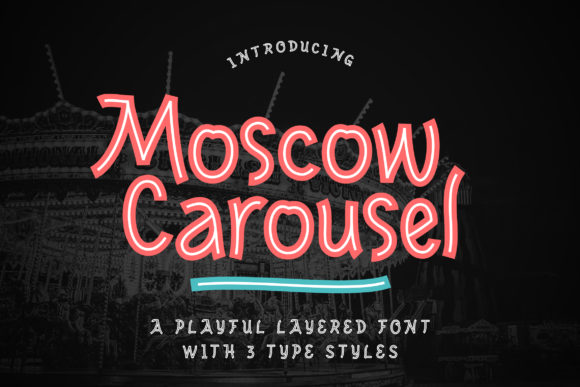
Moscow Carousel Font
Indulge in the whimsical charm of Moscow Carousel, a handwritten font masterpiece that radiates warmth and playfulness. Its elegant swirls and enchanting ligatures dance across your designs like a graceful carousel, evoking a sense of nostalgic delight.
With Moscow Carousel, your creative visions will soar to new heights. This versatile font family lends itself seamlessly to Instagram posts, calligraphy projects, and any endeavor that calls for a touch of whimsy. Its friendly and approachable demeanor instantly captures hearts, making it the perfect choice for designs that aim to connect on a personal level.
Prepare to be swept away by the artistic allure of Moscow Carousel. Its distinctive style transforms ordinary words into captivating expressions, breathing life into your messages and captivating your audience. Let this enchanting font guide you on a whimsical journey where creativity unfolds as a true masterpiece.